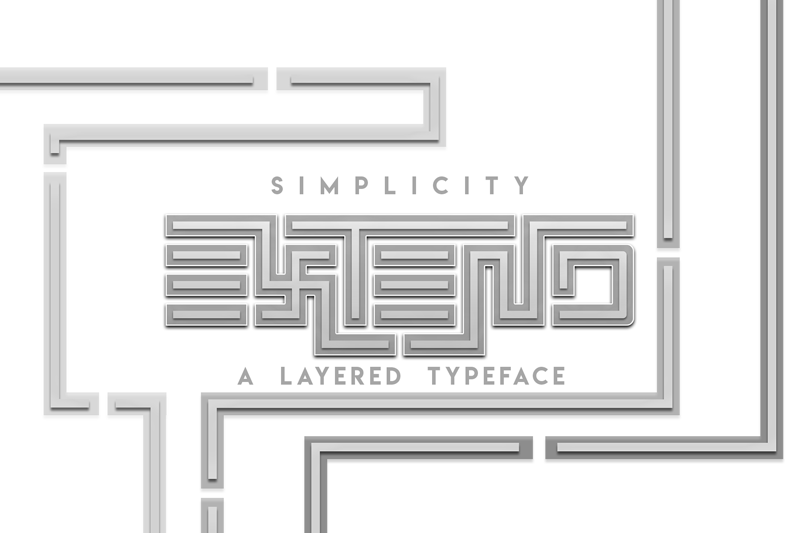
Preview and download Simplicity Extend Font. Created by EyeCone in Techno Sci-fi styles with Free for personal use license.
Simplicity Extend is a layered typeface which comes in 6 weights: regular, regular italic, thin, thin italic,hollow, hollow italic. free For Personal Use. For commercial use you must purchase a license or pay through PayPal. For inquiries you may leave a message here jsongarnica@gmail.com or visit my online store https://fontbundles.net/eyecone/223769-simplicity-extend |